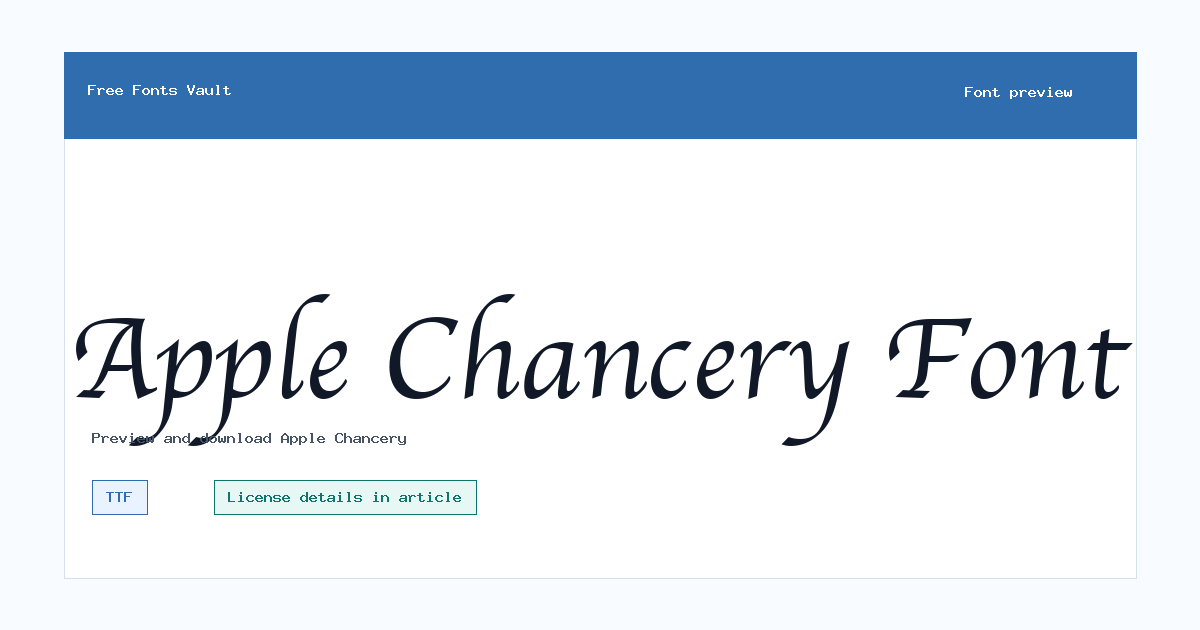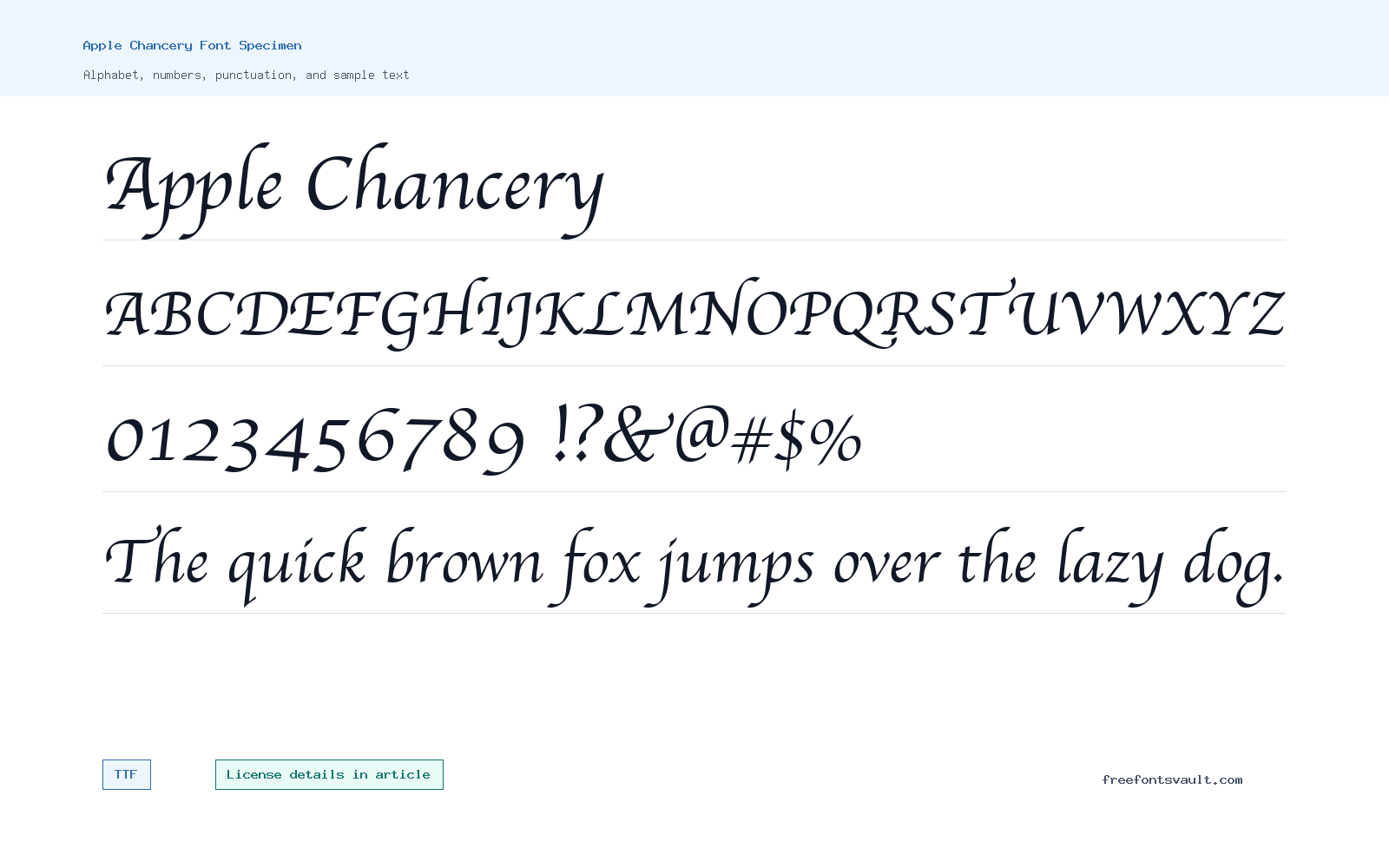
Apple Chancery
Apple Chancery is a script-style font with a calligraphic, forward-moving shape. It is useful for short decorative lines where a formal handwritten tone fits the design.
About Apple Chancery Font
Apple Chancery leans toward a chancery calligraphy look rather than casual handwriting. The listed file is Apple-Chancery.ttf, a regular 400-weight TrueType font. Its flowing shapes can bring a warmer, more personal tone to names, invitations, greetings, quote cards, certificates, and short title accents.
Because the design is script-like, it needs careful sizing. Large and medium sizes usually show the curves best, while long paragraphs can become tiring to read. Try your exact phrase in the preview, especially if it includes capital letters, apostrophes, numbers, or punctuation. Script fonts can look very different from word to word.
- Calligraphic script look with a formal handwritten tone
- Best for short decorative text instead of long reading copy
- Works well at medium to large sizes where curves stay clear
- Pairs cleanly with plain serif or sans serif body text
- Invitations, greeting cards, certificates, and announcements
- Names, signatures, personal messages, and short quotes
- Decorative headings for print graphics and image designs
- Labels, packaging mockups, and formal title accents
- Testing a calligraphic mood before choosing final typography
Use Apple Chancery sparingly. One name, heading, or short message can feel elegant; a full paragraph can feel crowded. If the letters begin to compete with the message, reduce the amount of script text and support it with a simpler companion font.
What kind of font is Apple Chancery?
Apple Chancery is a decorative script-style font with a calligraphic look and a formal handwritten feel.
Is Apple Chancery good for body text?
It is better for short display text. For paragraphs, use a simpler serif or sans serif font and keep Apple Chancery for the accent line.